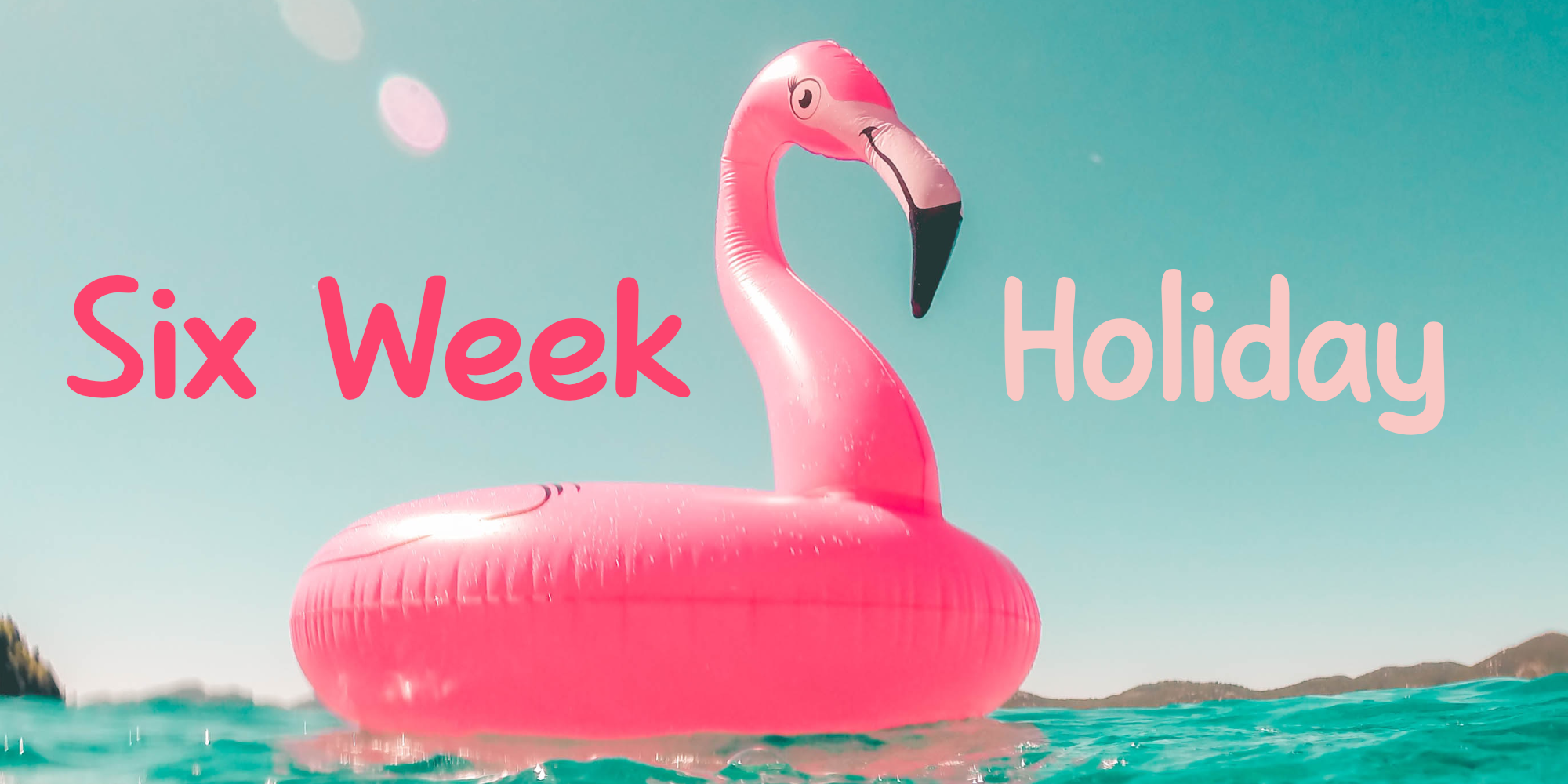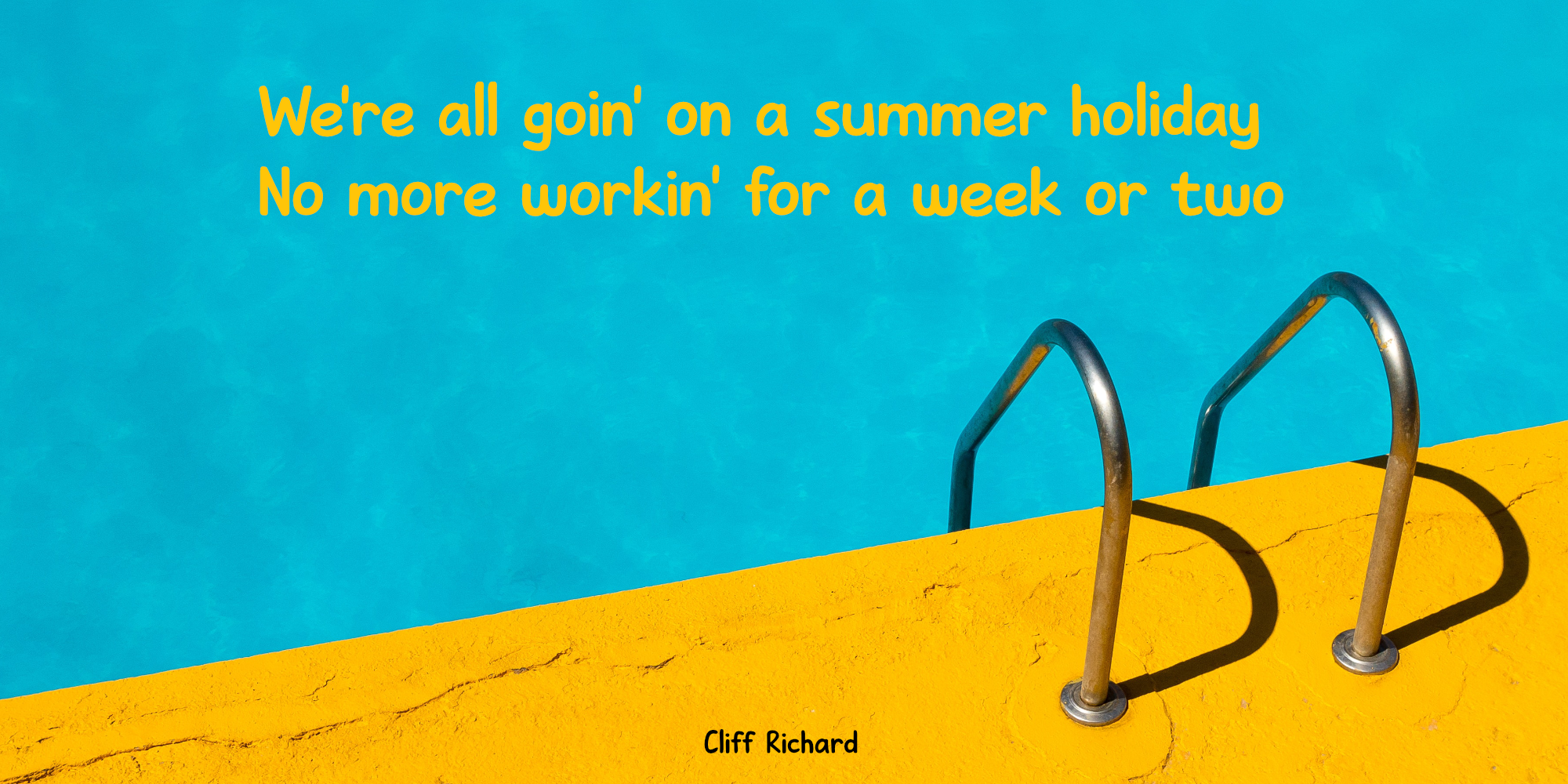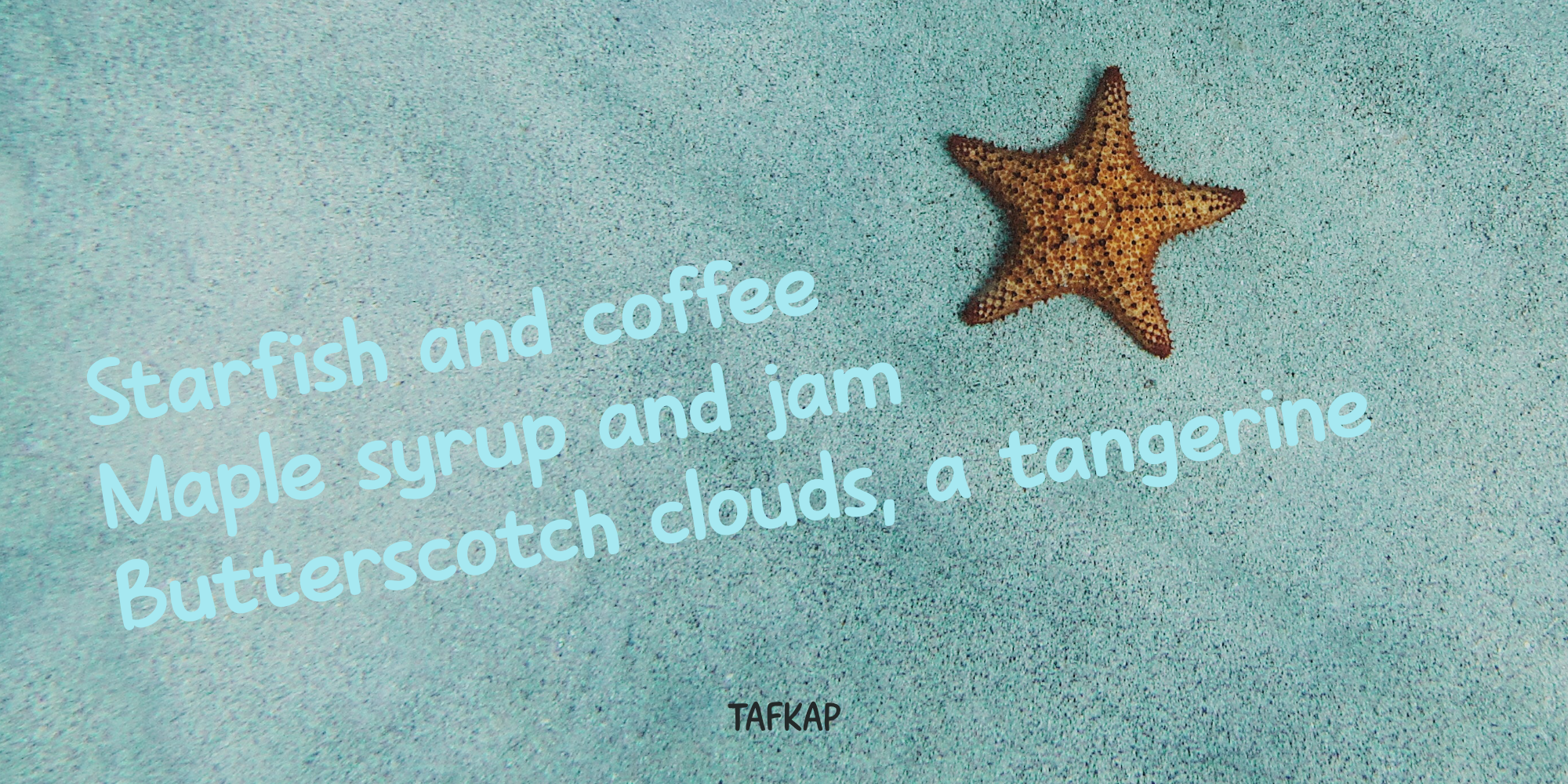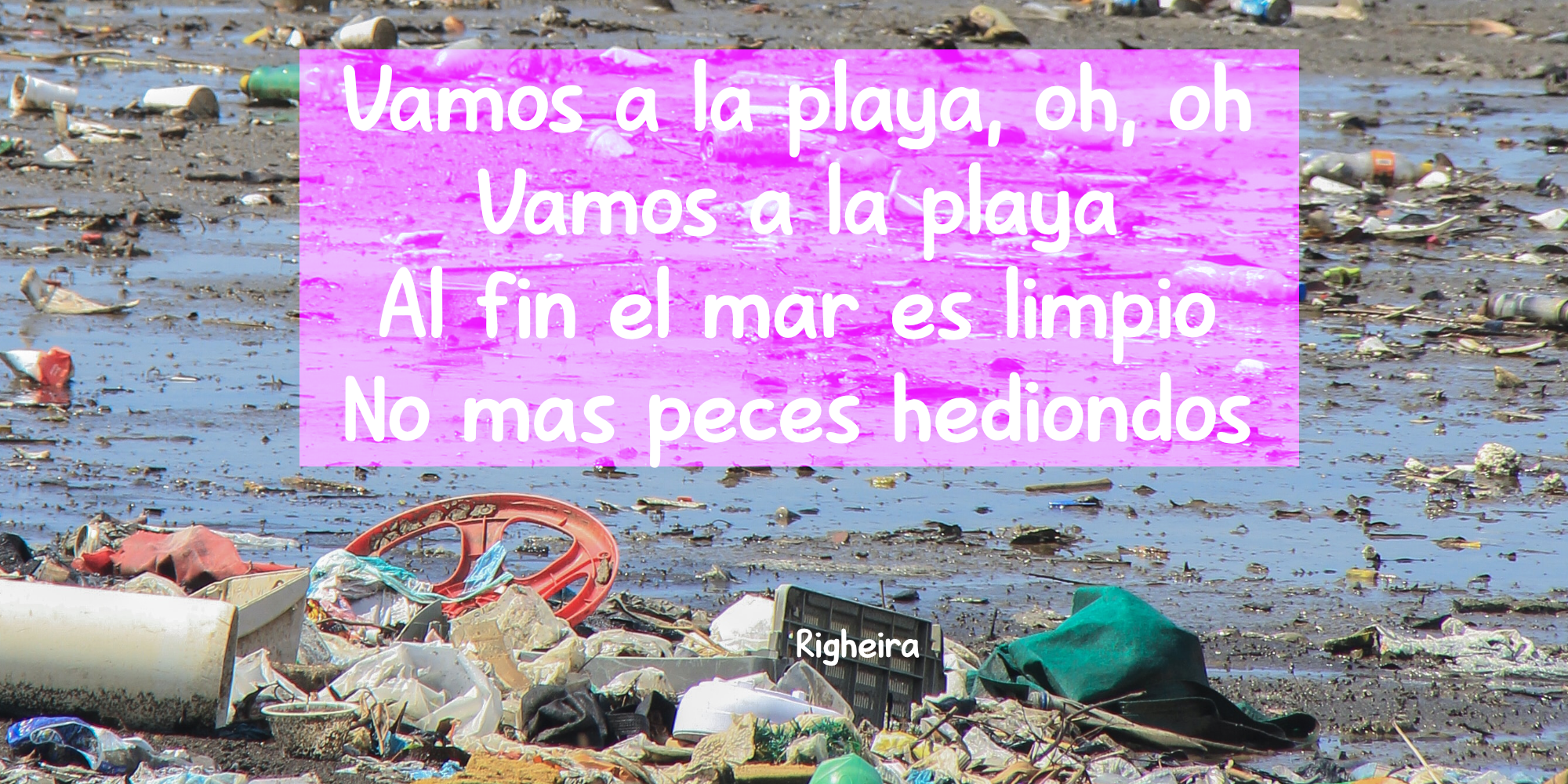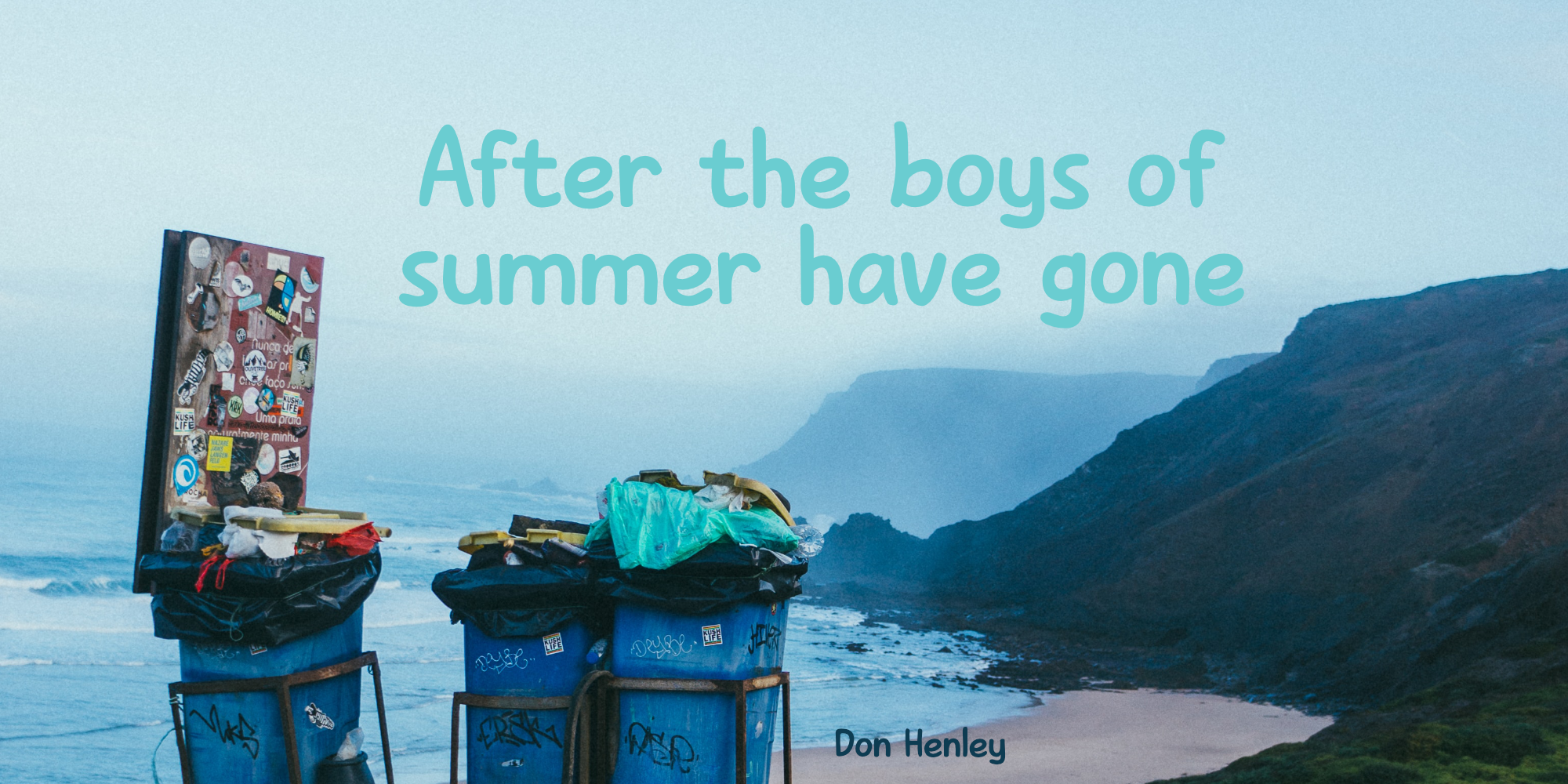
Six Week Holiday (2 fonts)
Six Week Holiday is an ode to the chaos of summer. It is a cute handmade ‘school’ font that will put some sunshine in your designs! Comes with extensive language support.